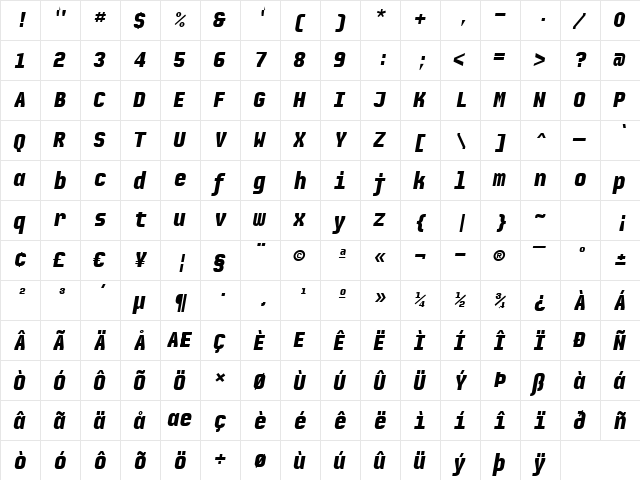
Audimat Mono BoldOblique Font Preview
Design Context for Audimat Mono Typeface
Audimat Mono uses fixed-width spacing throughout, giving it the structured, systematic character associated with coding environments and technical documentation. The dynamic lean of this cut emphasises speed and emphasis in any layout. Its bold stroke weight gives it real presence on the page.
Pro Tip: Use Audimat Mono with slightly increased line-height for extended reading — fixed-width spacing can feel dense in longer passages without extra breathing room.